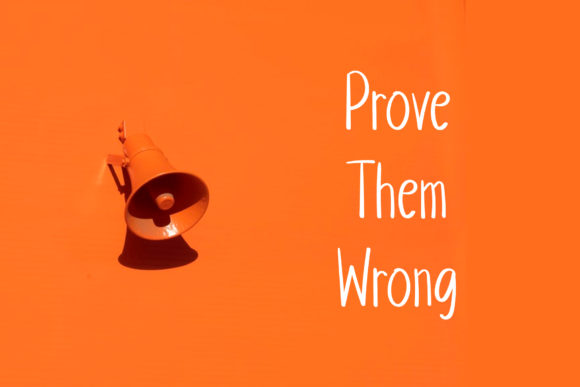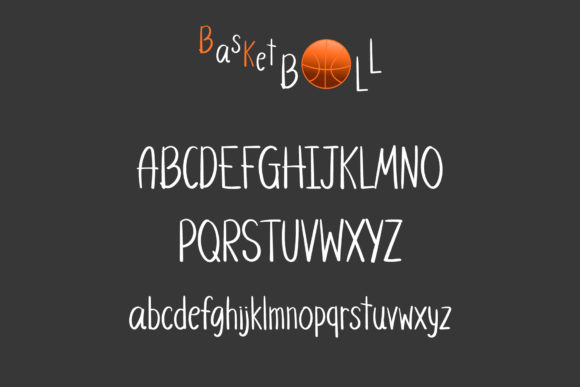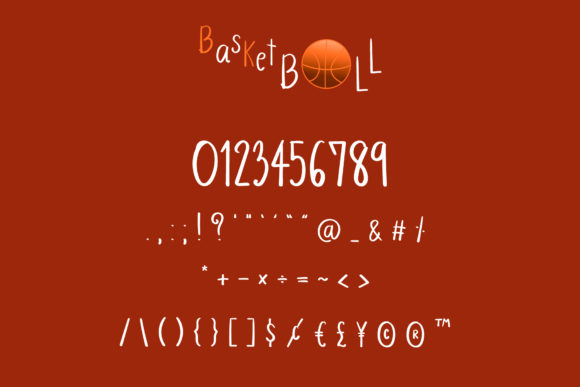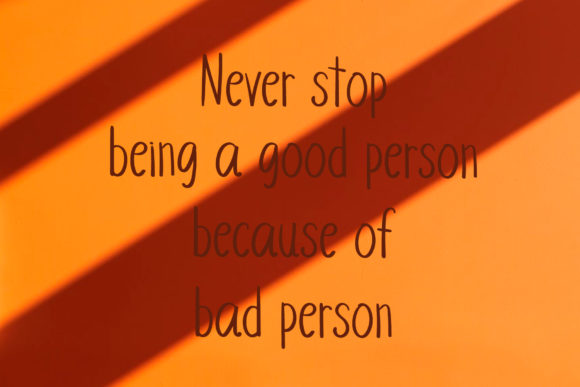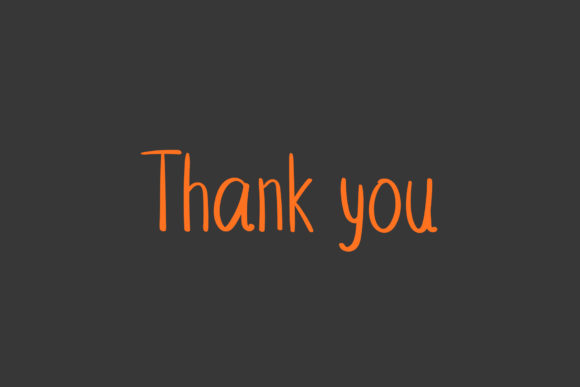
The Slam Dunk of Fonts: Discovering Basketball Font
I’ll never forget the time I was working on a logo design project for a local basketball team. I had a clear vision of what I wanted to create, but the font I was using just wasn’t cutting it. The letters looked stiff, and the overall design felt forced. That’s when I stumbled upon Basketball Font, a simple yet casual handwritten font that completely transformed my design. In this article, I’ll share my experience with Basketball Font, its features, and how to make the most of it in your designs.
Basketball Font has quickly become one of my go-to fonts for various design projects. Here’s what I love about it:
- ✨ Incredible feel: Basketball Font has a unique, hand-crafted feel that adds a personal touch to any design.
- ✅ Versatility: This font is perfect for logos, branding, social media, and crafty DIY projects.
- 💡 Ease of use: The font is simple to work with, even for those who are new to design.
While Basketball Font is an excellent choice, it’s not without its quirks:
- 🤔 Limited formal applications: Due to its casual nature, Basketball Font might not be the best fit for formal or professional projects.
- ⚠️ Glyph limitations: The font may not have an extensive range of glyphs, which could limit its use in certain design scenarios.
Basketball Font was created with the intention of capturing the carefree spirit of handwritten fonts. The designer aimed to create a font that would be perfect for creative projects, logos, and branding. Inspired by the casual, laid-back feel of handwritten text, Basketball Font is an excellent choice for designers looking for a unique and versatile font.
| Font Name | Basketball Font |
| Author | Wanida Toffy |